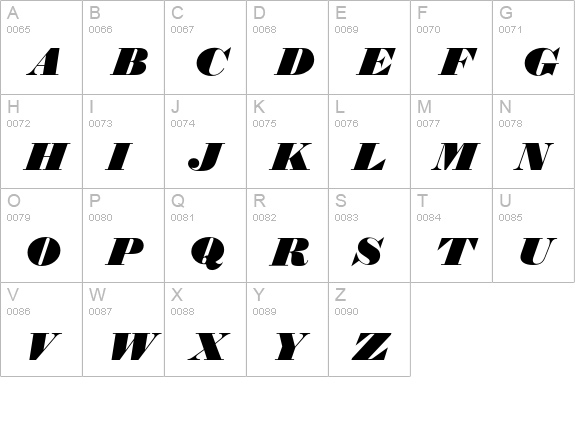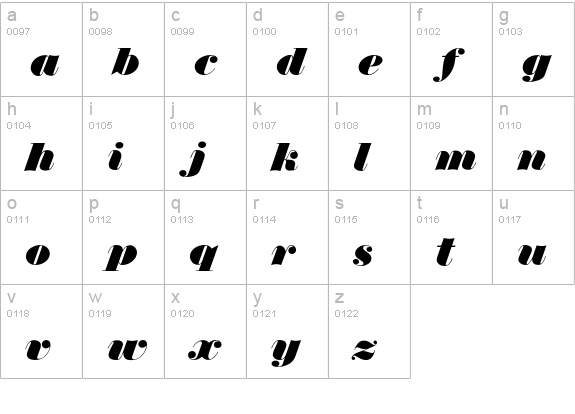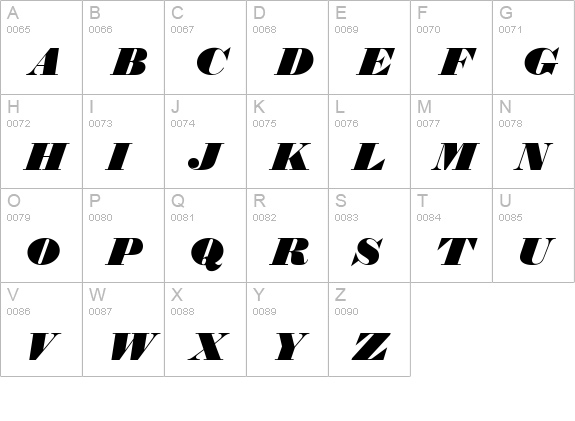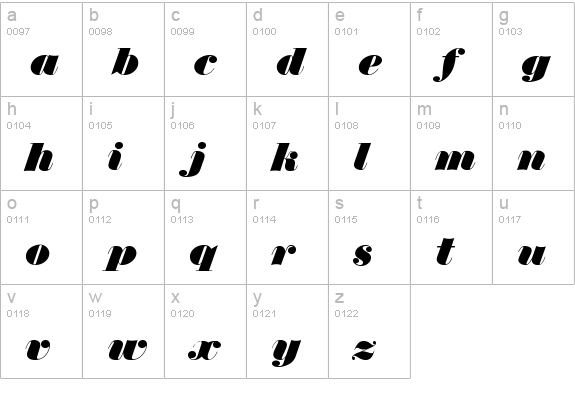
ThorowgoodEF-RegularItalic Font Details
ThorowgoodEF-RegularItalic is a stunning and elegant font that adds a touch of sophistication to any design project. With its stylish and slanted letterforms, this font exudes a sense of grace and fluidity, making it perfect for conveying a sense of elegance and refinement. The italicized version of ThorowgoodEF-Regular adds a unique twist to the font, allowing for more creative and artistic designs. Whether used for headings, body text, or even logos, this font is sure to make a memorable impression. One of the best things about ThorowgoodEF-RegularItalic is that it is available for free. Yes, you heard that right - this incredible font can be freely downloaded from FontsMarket.com. This means that you can enhance your designs with this beautiful typeface without having to spend a dime. With its versatile nature and visually appealing design, ThorowgoodEF-RegularItalic is a must-have for any designer or typographer. So why wait? Download this amazing font today and see the difference it can make in your next project.